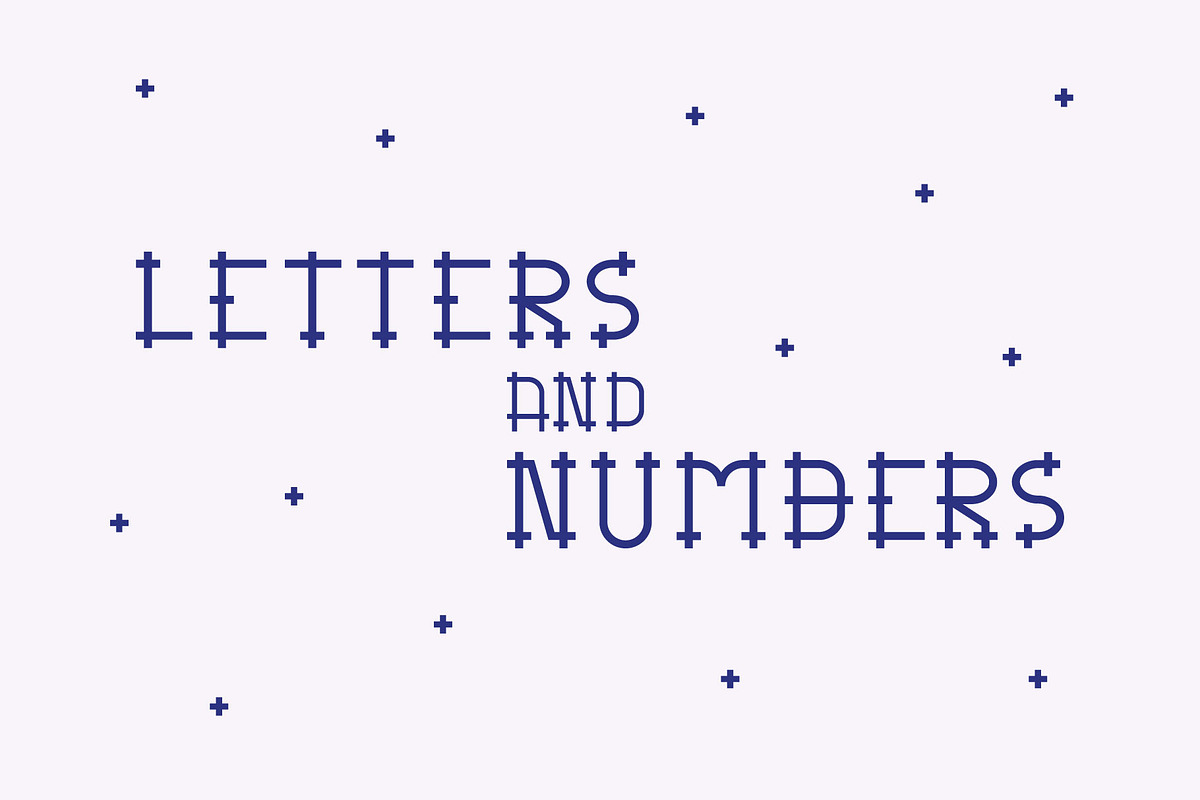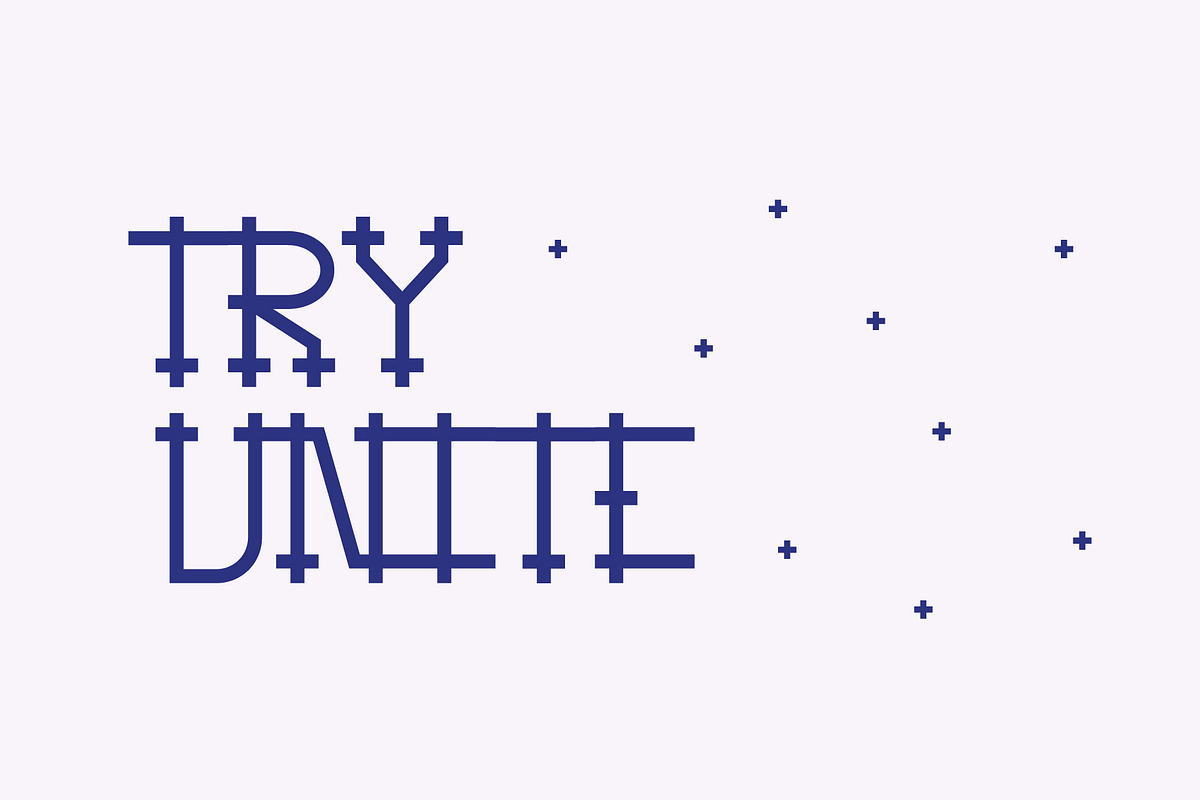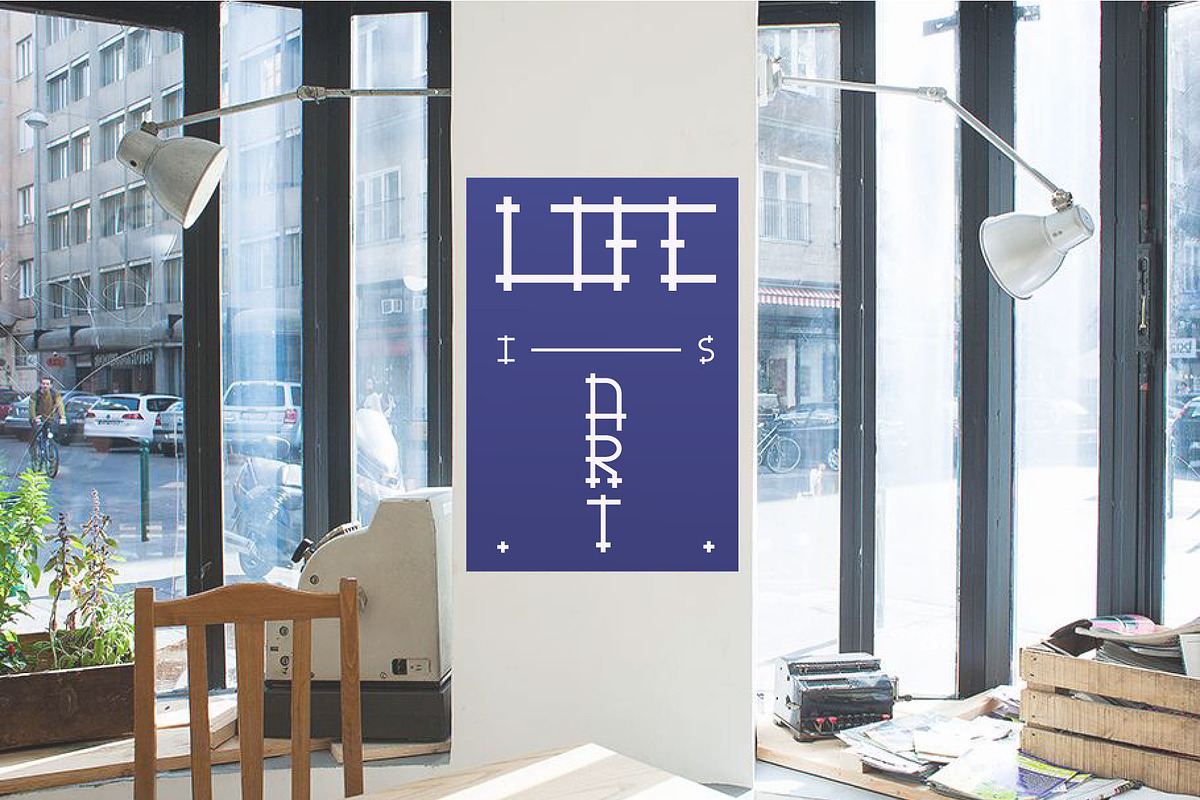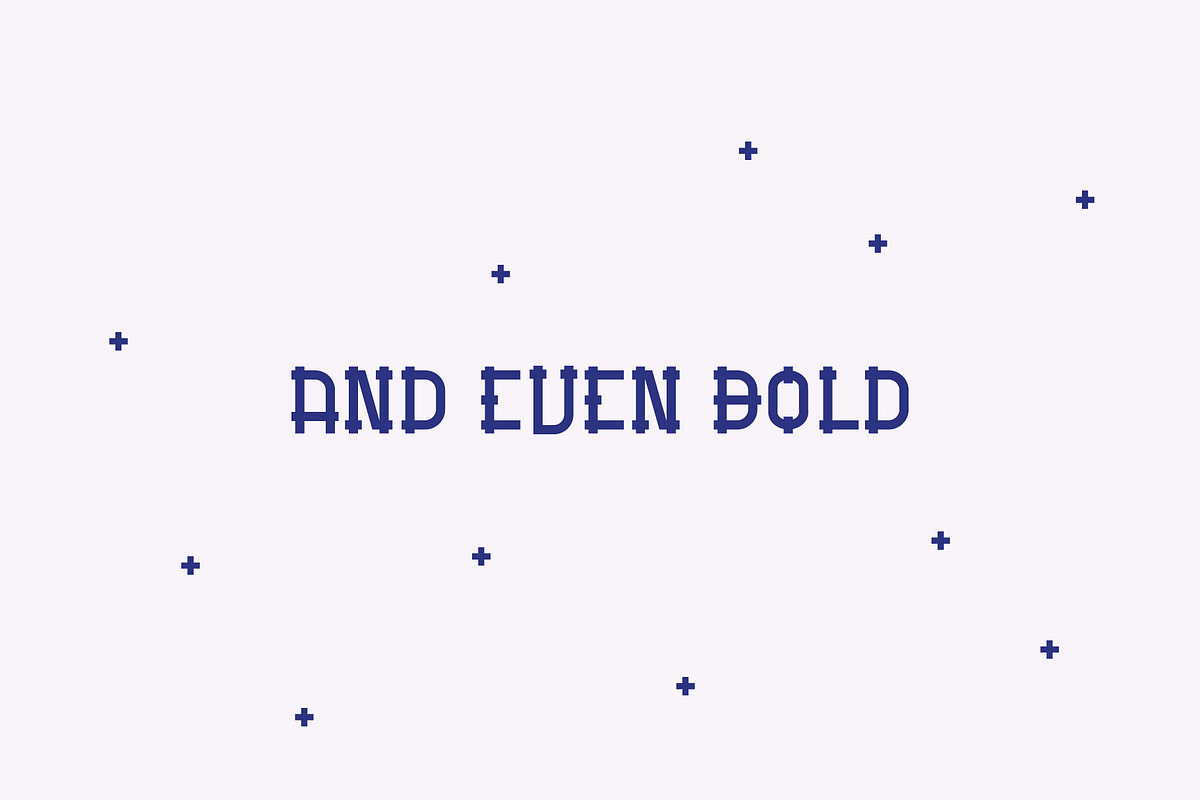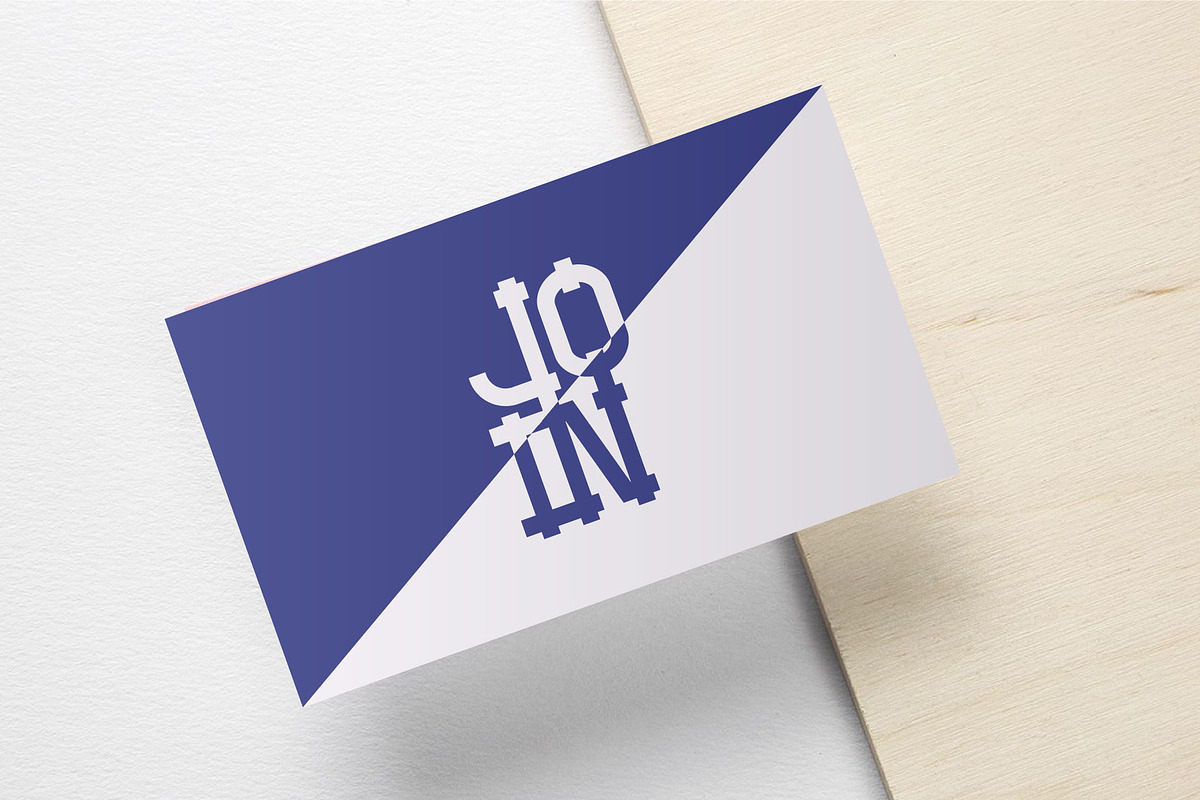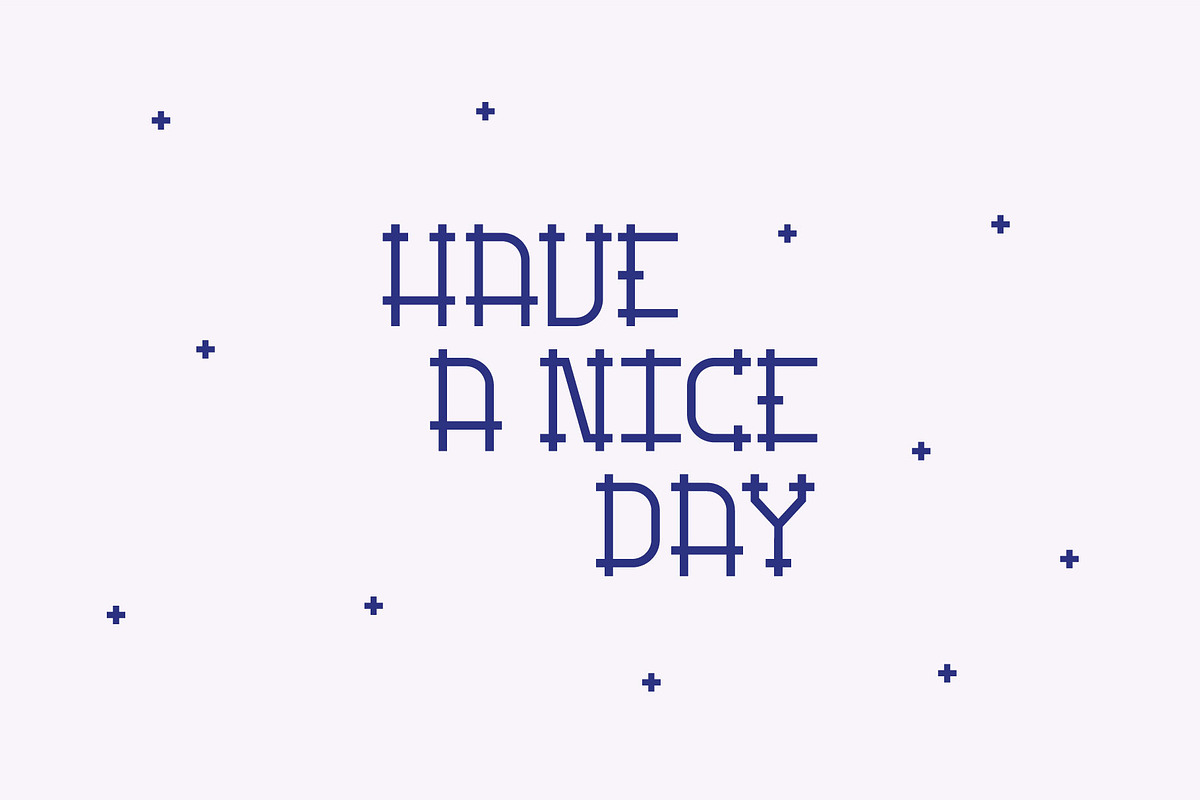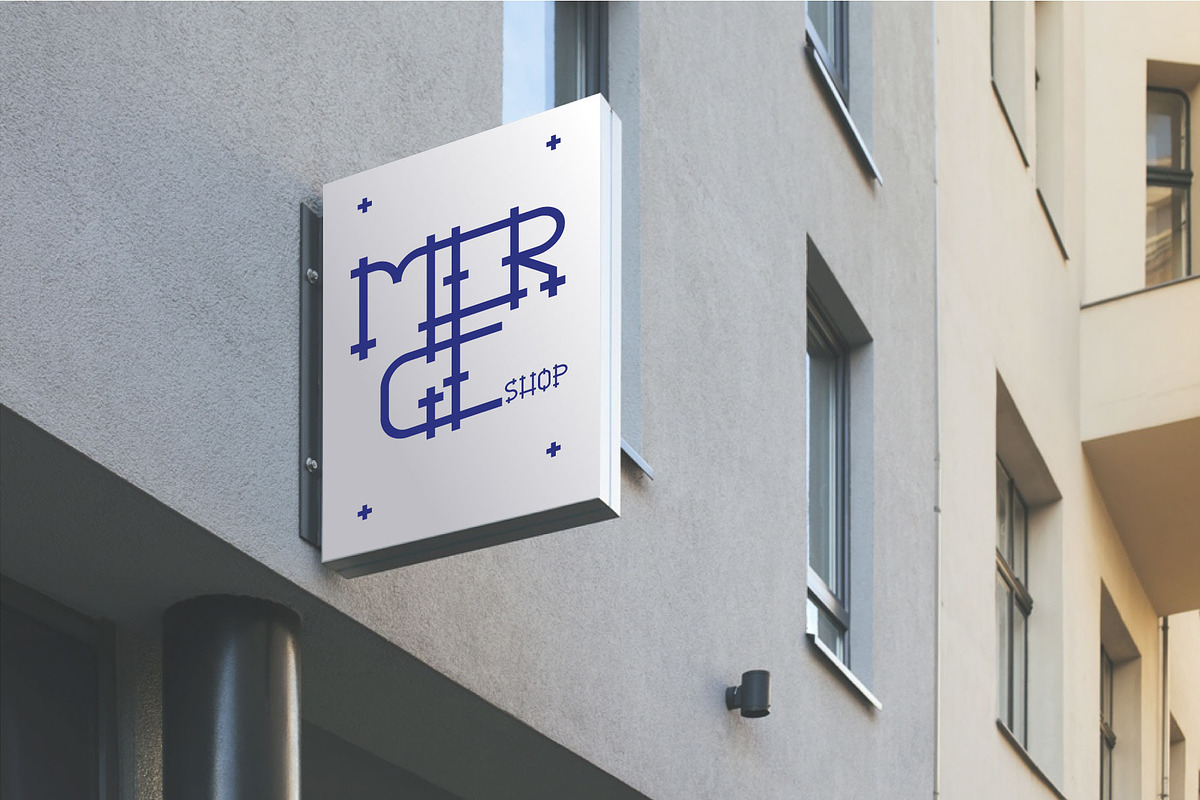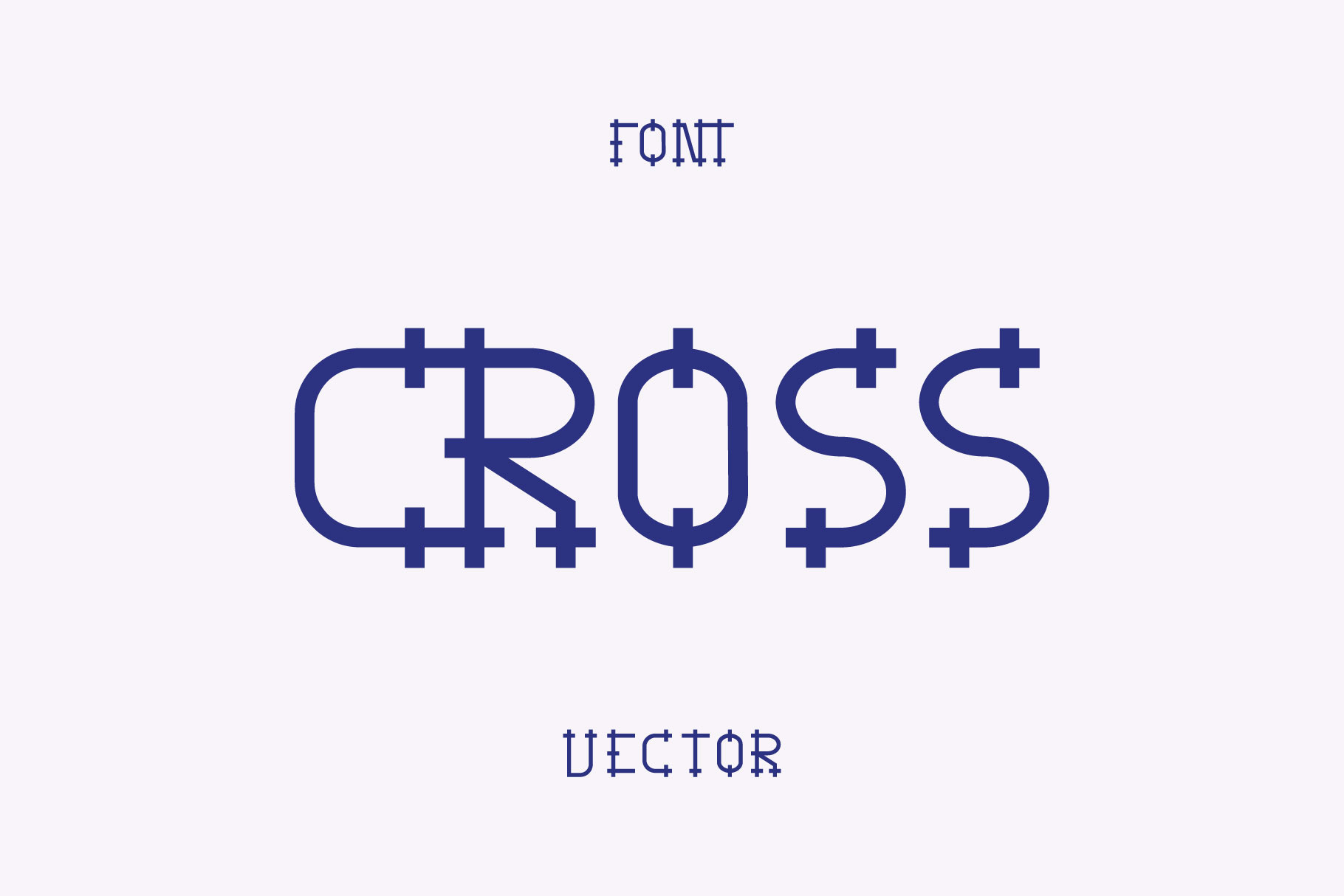
Vector Font. Cross
Cross – only vector decorative font with elements of a cross. Unusual "serifs" allow to unite elements of a font in uniform signs that to allow to embody the most unusual ideas in a life.
Variations
- Bold
- Uppercase Character
- Latin Letters